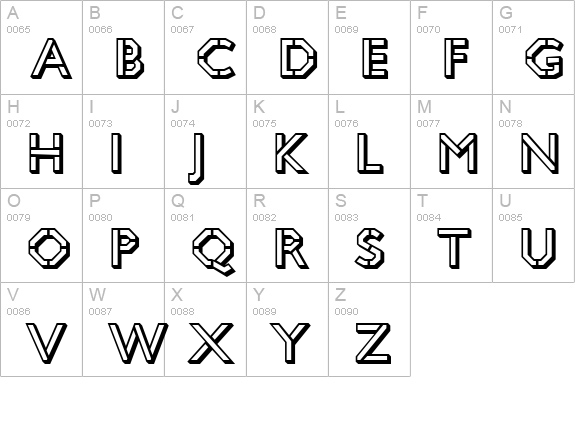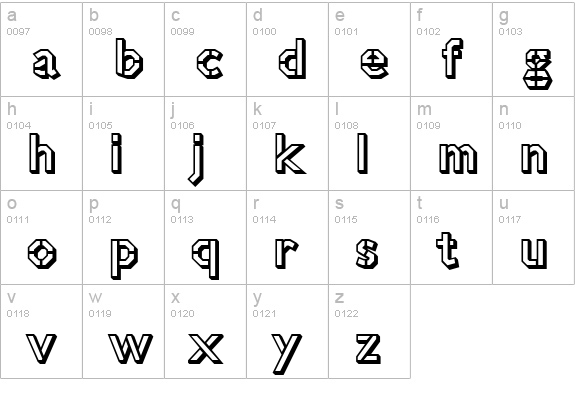
The Jillican War 3D font is a visually striking and dynamic typeface that adds depth and dimension to any design project. With its futuristic and cutting-edge appearance, this font is perfect for creating eye-catching headlines, posters, and logos that demand attention. The three-dimensional effect of the letters gives a sense of depth and realism, making your text pop off the page. What sets Jillican War 3D font apart is its versatility and flexibility, allowing you to use it in a variety of design applications, from sci-fi and gaming themes to technology and innovation projects. Its bold and impactful style makes it ideal for creating a strong visual impact and conveying a sense of power and authority. The best part? Jillican War 3D font is available for free download at FontsMarket.com, making it accessible to anyone looking to add a touch of drama and excitement to their designs. Don't miss out on this opportunity to elevate your typography game with the Jillican War 3D font today!